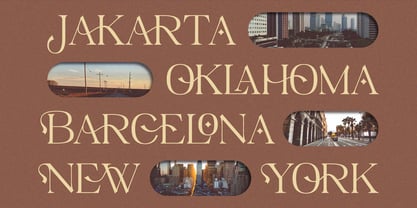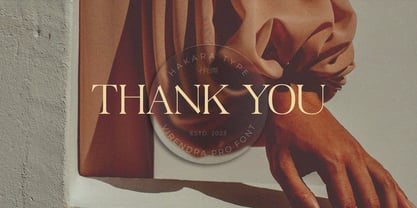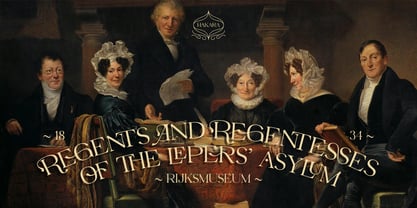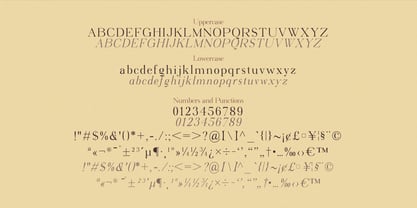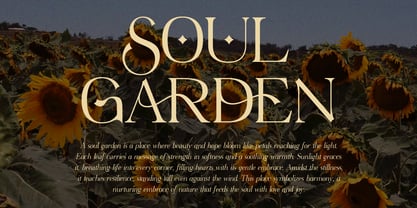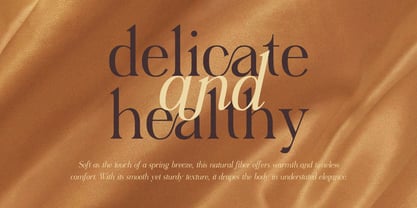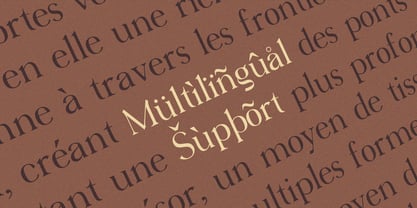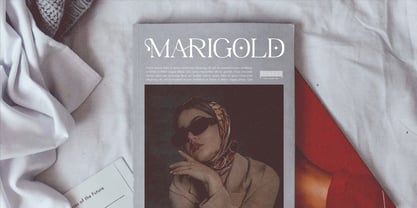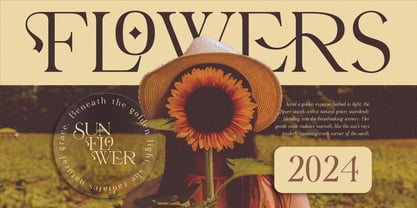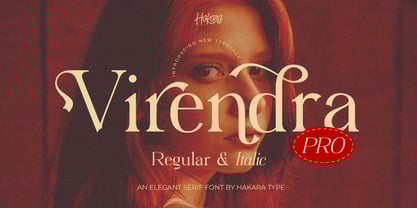
Virendra Pro
by Hakara Type
The Virendra Pro Font Family was designed by Kanisius Adi Klau and published by Hakara Type. Virendra Pro contains 2 styles and family package options. More about this family
Virendra Pro is an elegant serif font that blends classic style with a modern touch, creating a captivating and refined aesthetic. Each glyph is meticulously designed with unique details, offering a fresh and graceful look through the swash curves of its alternate characters and ligatures.
This font comes with multilingual support, making it suitable for global projects, and web font compatibility, making Virendra Pro a perfect choice for both digital and print designs.
Ideal for branding, editorial work, invitations, or any other creative projects, Virendra Pro adds a luxurious and professional character that elevates the visual quality of your designs.
Virendra Pro comes with uppercase, lowercase, numbers, function, alternates, ligatures, and included multilingual support.
Designers: Kanisius Adi Klau
Foundry: Hakara Type